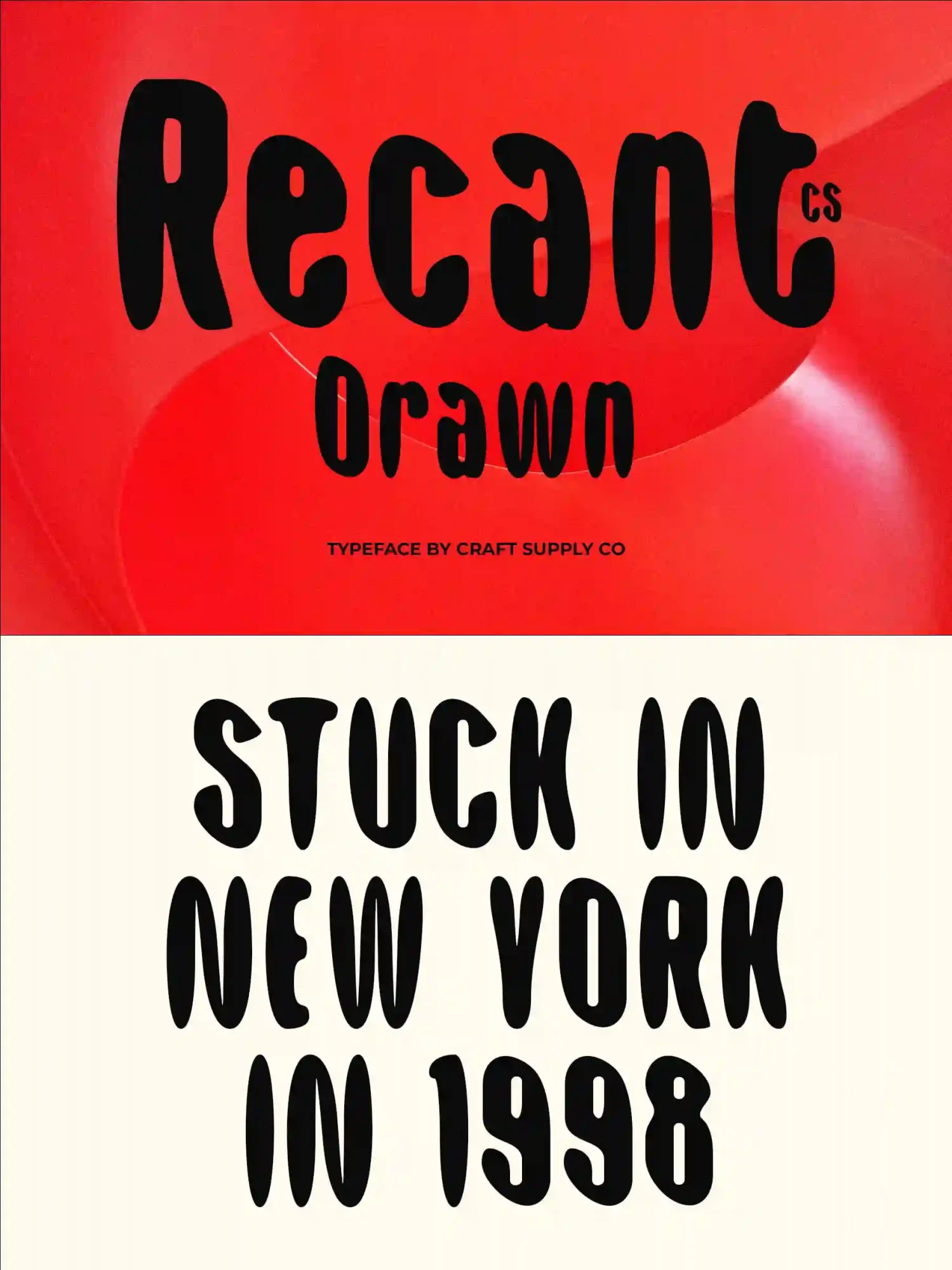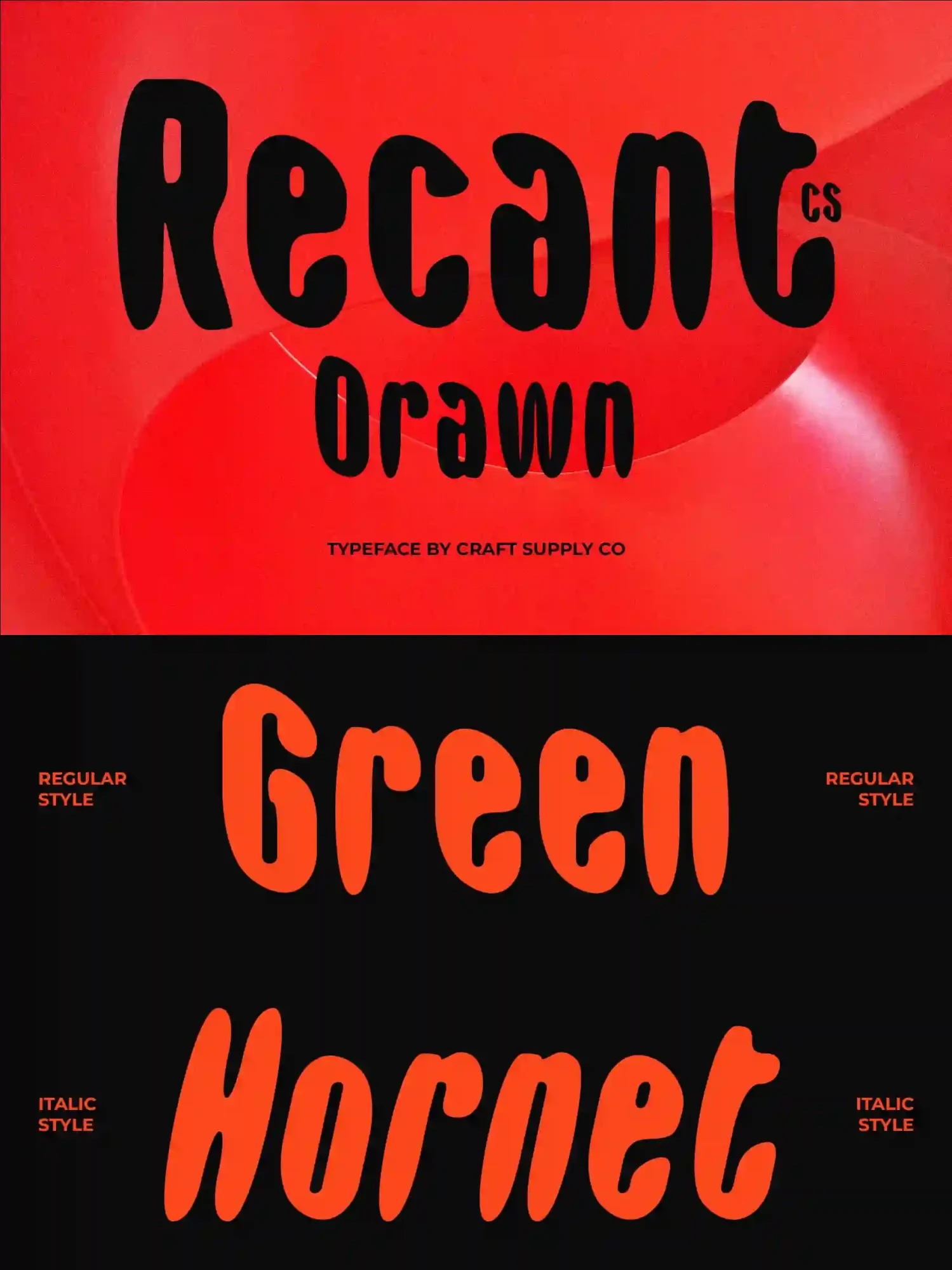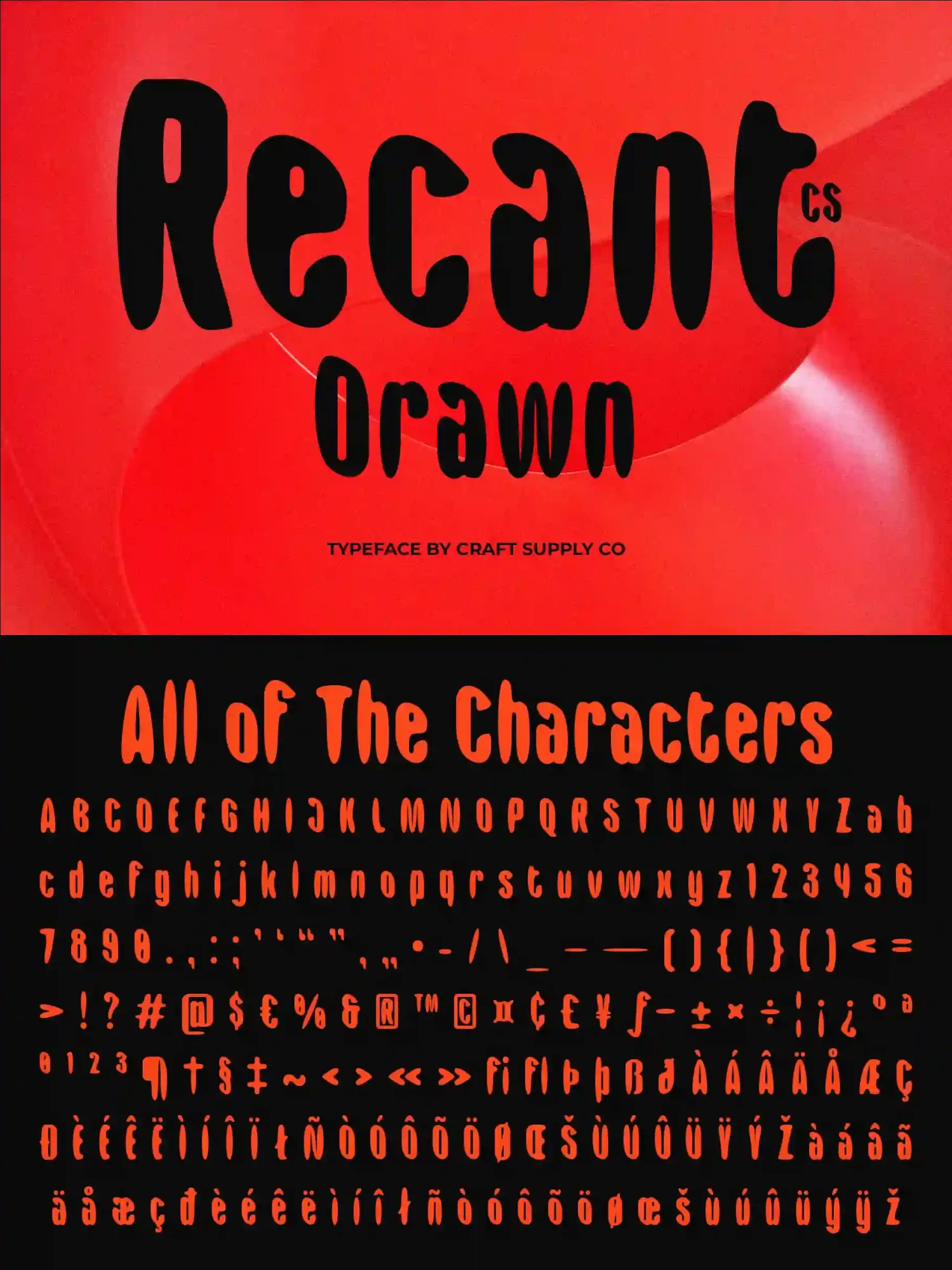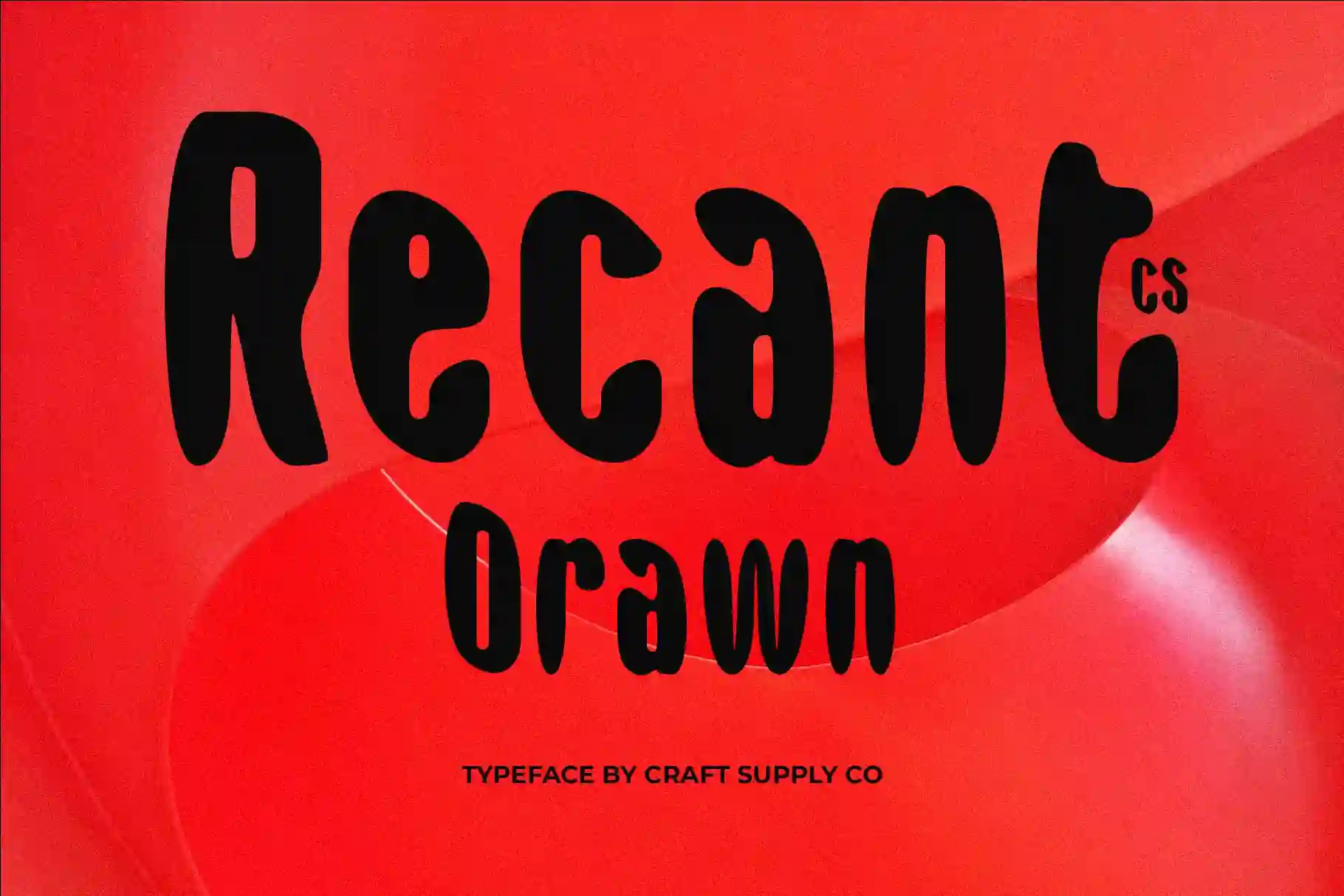
CS Recant Drawn: Bold Modern Sans Serif with Handmade Character
Modern Display Sans Serif with Drawn Effect
CS Recant Drawn is a modern display sans serif font featuring bold, striking letterforms that convey strength, confidence, and contemporary style. The subtle drawn effect adds a handcrafted texture, giving each character individuality and artistic flair.
Handmade Texture for Unique Expression
The drawn effect enriches this strong and commanding font with a tactile, artisanal quality, making the font feel lively and expressive. Each letter gains depth and personality, transforming bold forms into dynamic, visually engaging typography.